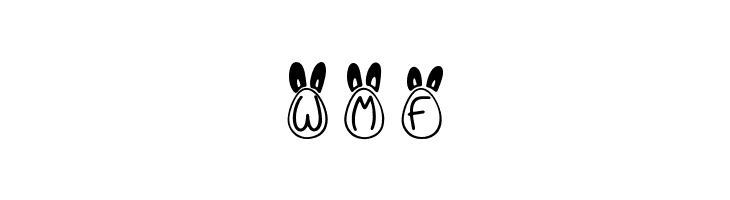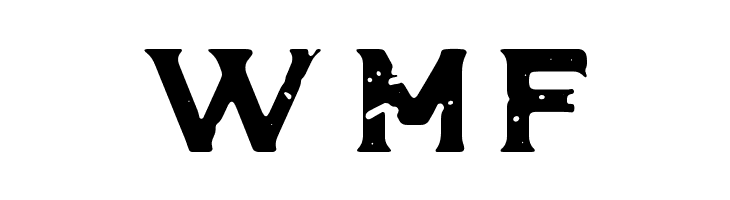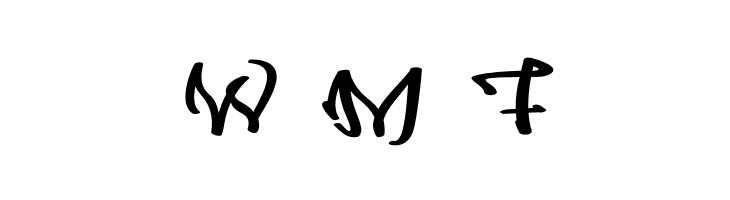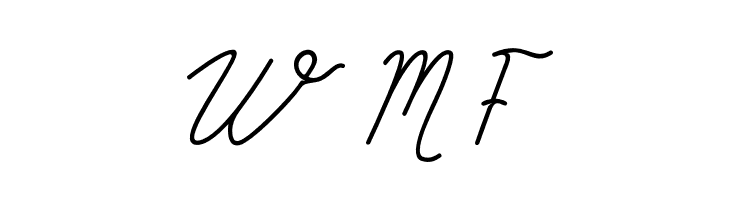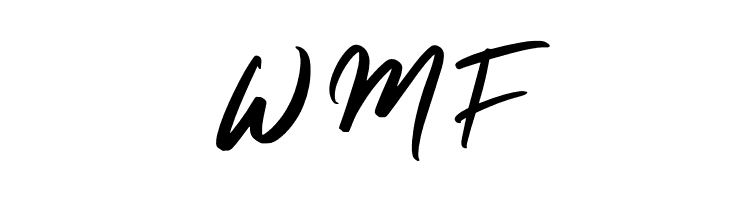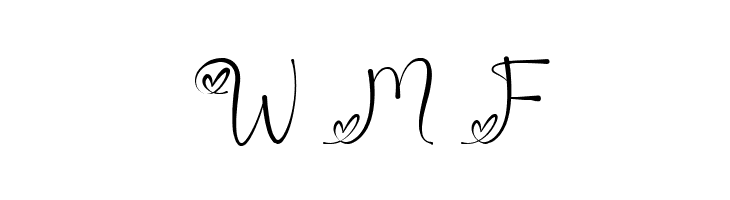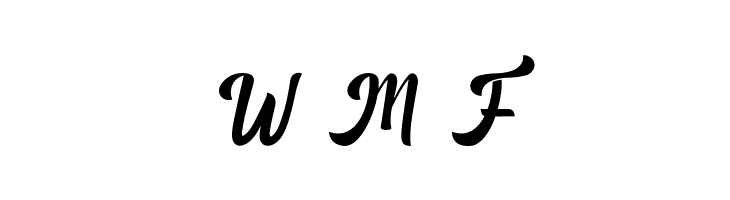
Bold, brush-style display font with a spooky, hand-drawn vibe.
A bold, brush-style font with dynamic, hand-painted strokes.
A playful, outlined font with a dynamic and energetic style.
A bold, jagged font with a spooky, hand-drawn style.
A spooky, cobweb-themed font perfect for Halloween designs.
A bold, jagged font with a playful, spooky Halloween theme.
A tall, narrow serif font with high contrast and elegant serifs.
A spooky, dripping font ideal for Halloween themes.
A playful, spooky font with jagged, uneven strokes, perfect for Halloween themes.
A spooky, Halloween-themed decorative font with dripping effects and playful elements.
An elegant and whimsical script font with ornate, flowing letterforms.
Playful handwritten font with tall uppercase and connected lowercase script.
A playful, spooky font with bold, uneven strokes and a hand-drawn appearance.
A bold, decorative font with gothic influences and intricate details.
A bold, dynamic brush script font with energetic and flowing strokes.
A playful, casual handwritten font with fluid, connected strokes.
A gothic, eerie font with sharp, angular characters ideal for horror themes.
A bold, rounded sans-serif font with a playful and modern aesthetic.
A modern, cursive font with elegant, flowing characters and medium contrast.
A playful, casual handwritten font with smooth, rounded edges and consistent stroke width.
A modern, cursive font with smooth, flowing characters and consistent stroke width.
A playful and energetic handwritten font with fluid, dynamic strokes.
A bold, brush-style font with dynamic, hand-painted strokes.
A bold, expressive script font with a handwritten feel and elegant flourishes.
A bold, narrow font with a modern, geometric style.
A modern, outline-style font with tall, narrow characters and consistent stroke width.
A bold, geometric font with a modern and structured appearance.
A bold, flowing script font with elegant, cursive letterforms.
Playful hand-drawn script font.
Playful, rounded sans-serif with a handwritten feel.